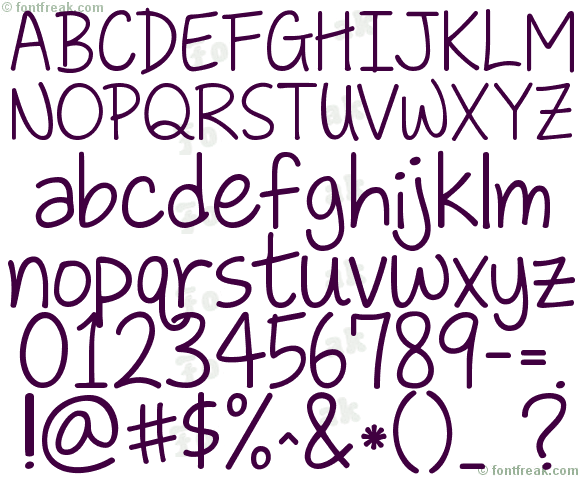
KG Love Somebody TWO
About KG Love Somebody TWO
KG Love Somebody TWO is a charming handwritten font created by Kimberly Geswein. This script font exudes a warm and inviting vibe, making it perfect for a variety of creative applications. With its playful, flowing lines and natural, casual strokes, this font captures the essence of personal expression and heartfelt communication. The strokes are moderately thick with a consistent weight, which enhances legibility while maintaining a friendly appearance. The spacing between letters is well-balanced, ensuring that the text remains readable even in longer passages.
This font shines in several specific use cases. It is an excellent choice for wedding invitations, where its romantic flair adds a personal touch to the big day. Additionally, it works beautifully for greeting cards and love letters, allowing the words to resonate deeply with recipients. Restaurant menus can also benefit from the inviting feel of this font, making dishes appear more appealing. For content creators, using KG Love Somebody TWO in social media graphics can evoke a sense of warmth and approachability, helping to engage audiences effectively.
The target audience for this font includes graphic designers, small business owners, and content creators looking to infuse their work with a personal and creative element. Whether you are designing a flyer, creating digital content, or crafting special invitations, this font offers versatility and charm.
What sets KG Love Somebody TWO apart is its ability to convey emotion through its distinctive style. The font's handwritten quality evokes a sense of authenticity, making it a fantastic choice for projects that require a personal touch. For those interested, a KG Love Somebody TWO font free download is available, allowing you to incorporate this delightful typeface into your designs effortlessly.